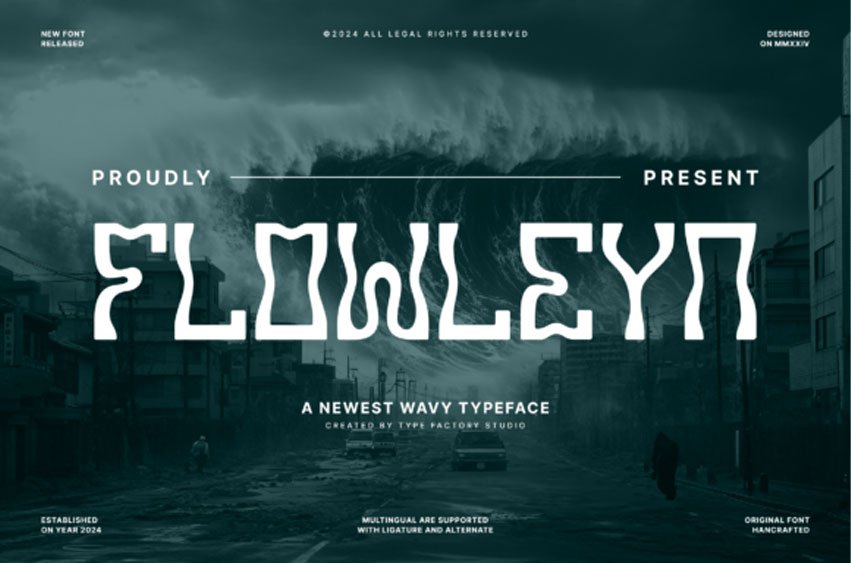
Flowleyn Font
Flowleyn Font is a wavy display typeface inspired by fluid motion and distorted letterforms. Each character features soft curves and organic vertical movement, creating a dynamic rhythm across headlines and large-format typography.
Designed with a bold structure and consistent stroke weight, Flowleyn works well for posters, album covers, branding visuals, merchandise, editorial layouts, and statement headlines. The distinctive wave-shaped forms give a contemporary experimental feel while maintaining readability in short text compositions.
This typeface includes uppercase, lowercase, numerals, punctuation, multilingual support, and selected alternates and ligatures to enhance typographic flexibility.
Flowleyn is best used in large sizes where its flowing silhouette and sculpted letterforms can stand out clearly.